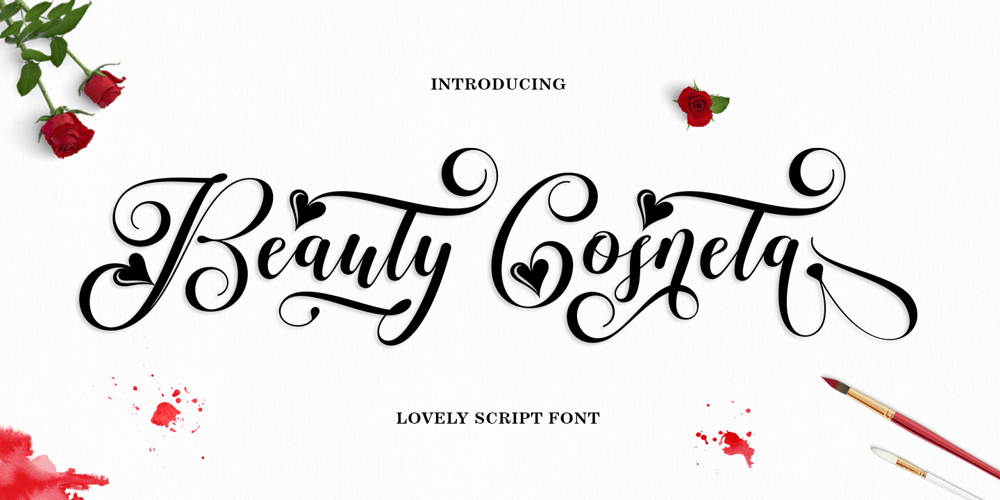
Beauty Cosneta Font Family was designed by Wais Alqarni and published by Ws Studio. Beauty Cosneta contains 1 styles and family package options. Beauty Cosneta is a new modern script font with an irregular base line. Trendy and feminine style. Sweet lady Script looks beautiful on wedding invitations, thank you cards, quotes, greeting cards, logos, business cards and more. Perfect for use in ink or watercolors. Includes initial and final letters, alternatives, binders and multi-language support.To activate the OpenType Stylistic alternative, you need a program that supports OpenType features such as Adobe Illustrator CS, Adobe Indesign & CorelDraw X6-X7, Microsoft Word 2010 or newer versions. There are additional ways to access alternatives / swashes, using Character Map (Windows), Nexus Fonts (Windows), Font Book (Mac) or software programs such as PopChar (for Windows and Mac). How to access all alternative characters:This offer is available without limits.This package is perfect for greeting cards, branding, business cards, quotes, posters, stickers, blogs, logos, weddings, signage, packaging, birth announcements, photo overlays, wall art, quotes, printed matter, bags, t-shirts and many again!thank you for buying.